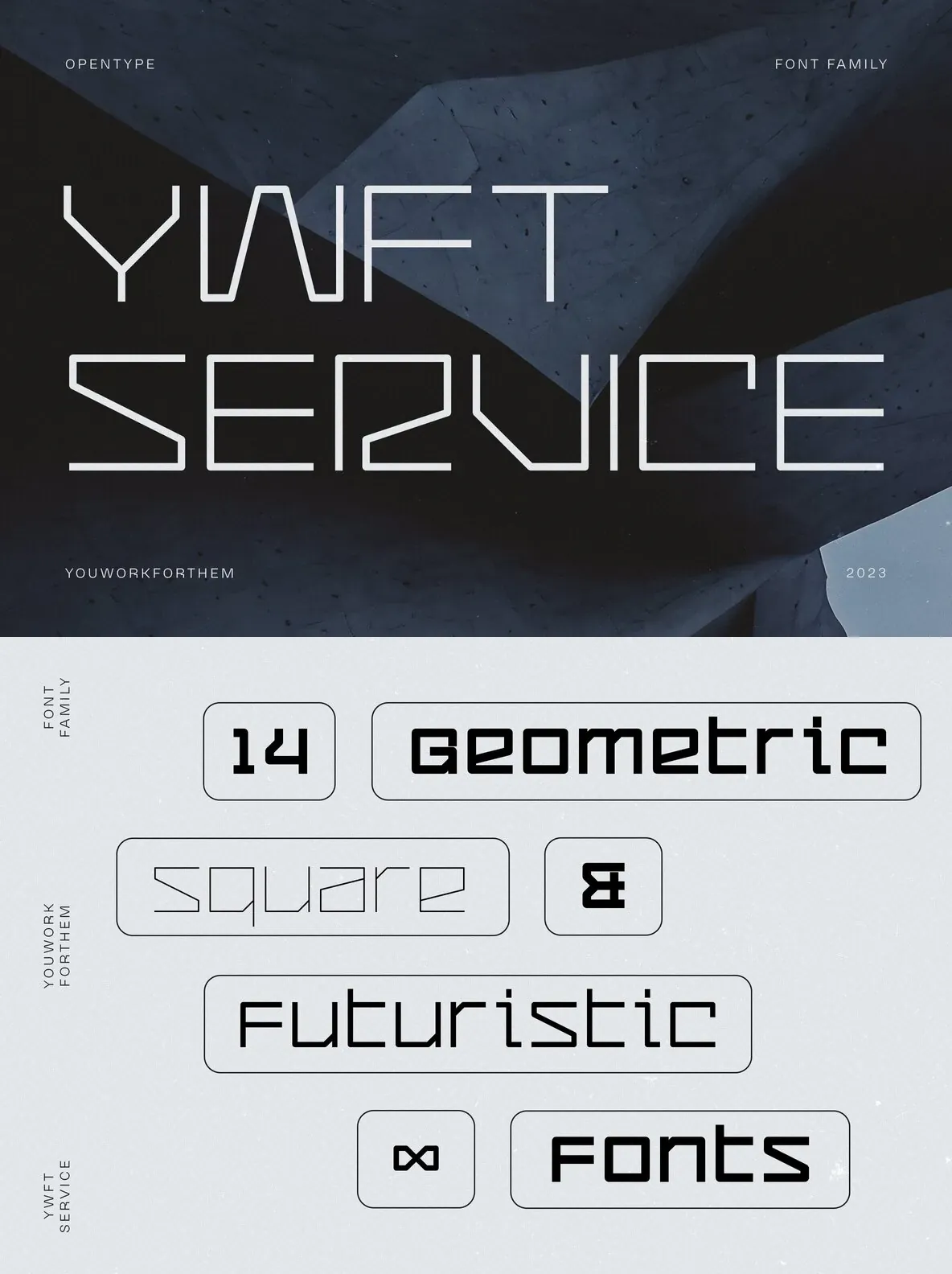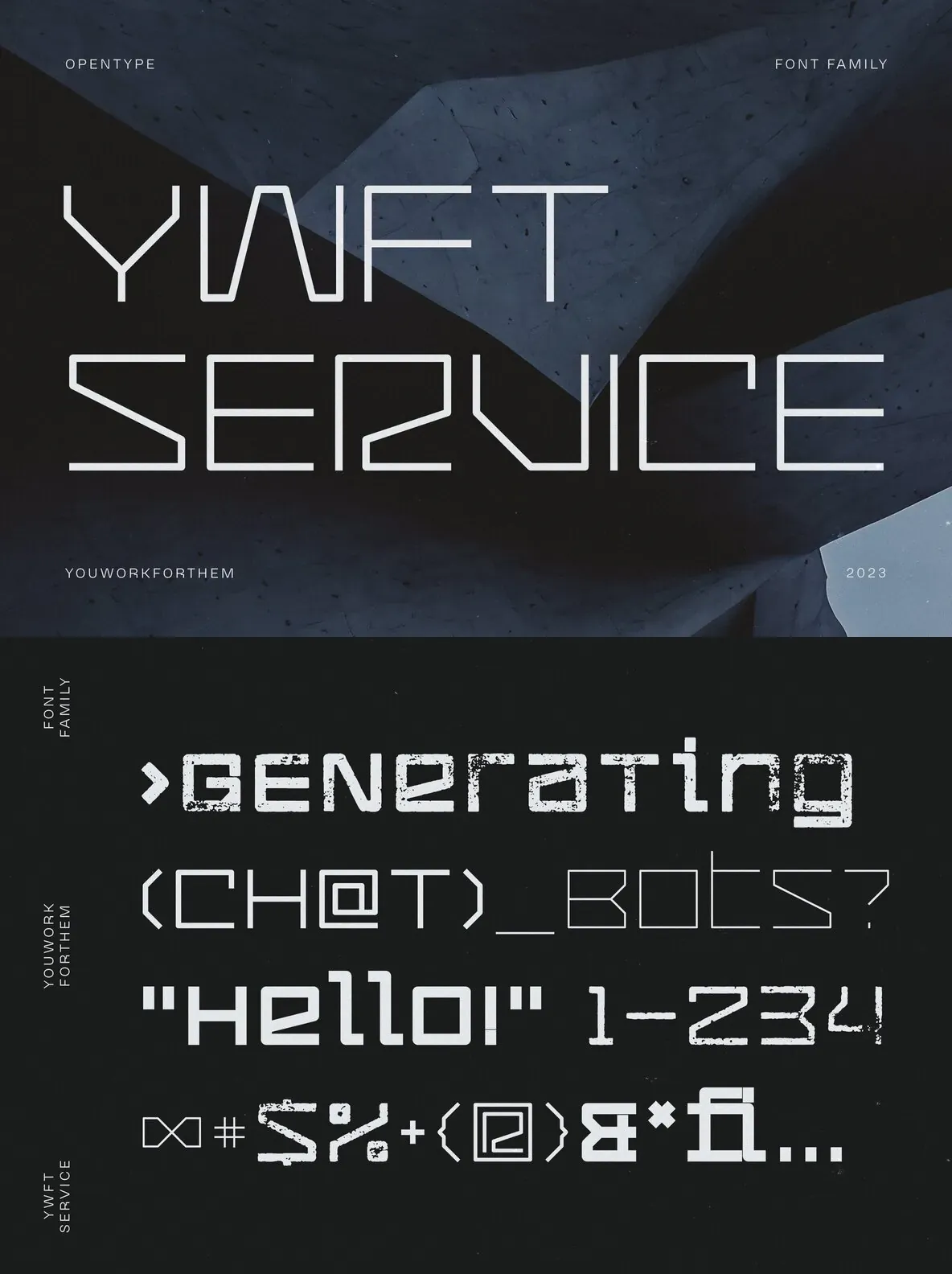
A striking marriage of musical influences and progressive design, YWFT Service harkens back to the dawn of the 21st century, a typographical tribute to the electronic beats that pulsed through the speakers of late-night dance clubs. Born from bespoke lettering that graced music labels and DJ flyers, this typeface steps beyond its underground roots to command attention in a broad spectrum of daylight applications.
YWFT Service hums with an industrial energy, its Y2K-style design reverberating with an unmistakable cyberpunk aesthetic. Yet, its appeal isn’t confined to the edgy and avant-garde. From the lean elegance of its thin weight to the commanding presence of its black, this versatile typeface feels equally at home in the refined realms of fashion and the bold strokes of editorial headlines.
A decade after its conversion to Opentype in 2010, YWFT Service has undergone another evolution. In 2023, the retro font family was expanded to incorporate a distressed and rough version. This latest iteration projects an aura of vintage Americana and rustic industrial charm, effortlessly transitioning from cyberpunk streets to the organic warmth of food packaging design.
Whether you seek to invoke a sense of aged authenticity or depict the grittiness of domestic production and agriculture, YWFT Service delivers with 14 distinct fonts, split equally between the clean and rough versions, spanning seven different weights.